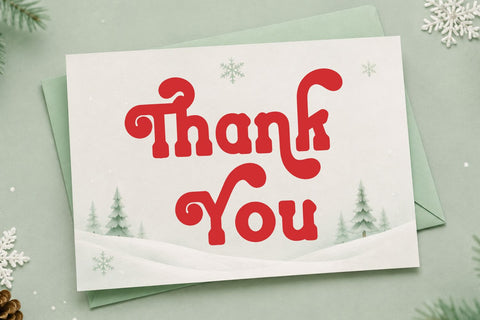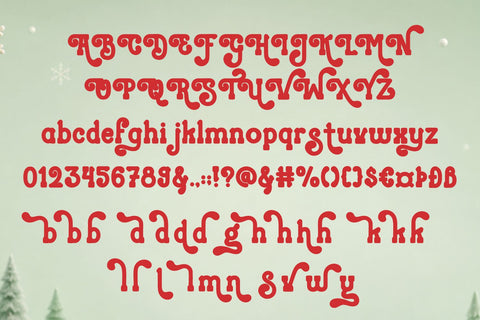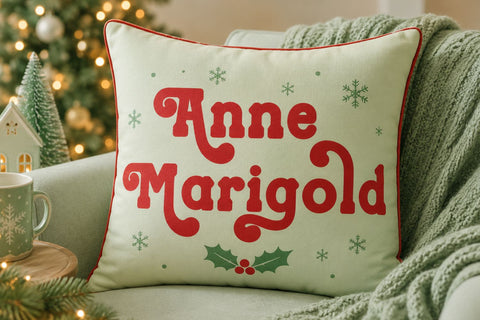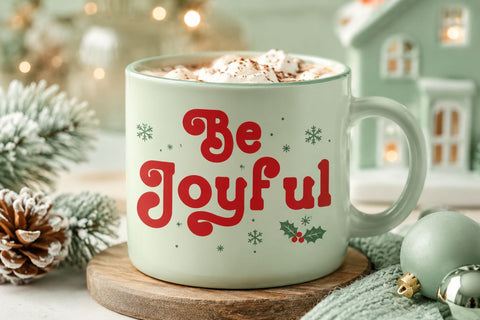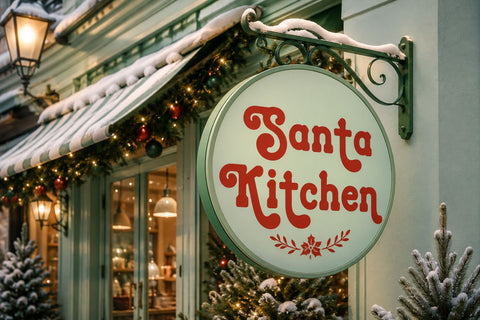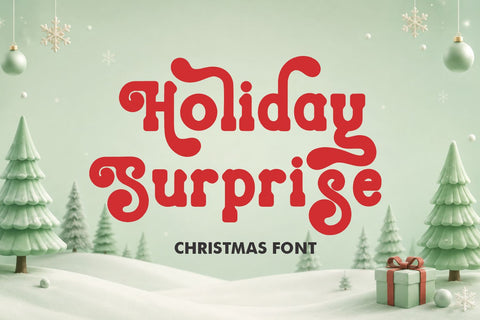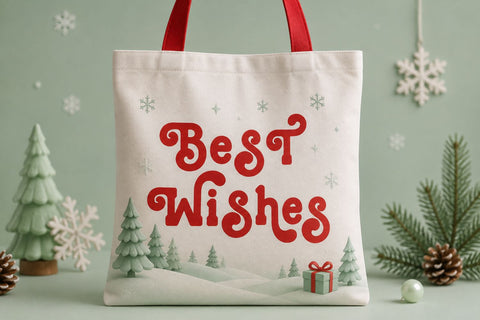
Holiday Surprise – Christmas Font
Holiday Surprise – Christmas Font | Festive Christmas Font
Holiday Surprise is a playful and charming Christmas font created to capture the warmth, excitement, and joyful spirit of the Christmas season. With cheerful decorative letterforms and a whimsical festive style, this Christmas Font brings instant holiday character to greeting cards, decorations, gifts, crafts, and seasonal designs.
Designed with a fun and friendly appearance, Holiday Surprise combines decorative details with clear, balanced letterforms. The result is a versatile font that works beautifully for both large Christmas headlines and smaller decorative elements.
Inspired by Christmas lights, snowy winter days, wrapped presents, Christmas trees, ornaments, holiday decorations, and cozy celebrations, Holiday Surprise adds a magical seasonal feeling to every project.
A Christmas Font for Holiday Designs
Holiday Surprise is made for a wide range of Christmas and holiday projects. Use it to create festive typography for:
From a simple holiday greeting to a complete Christmas collection, its playful personality helps create designs that feel cheerful, cozy, and festive.
Christmas Cricut Font for DIY Projects
Looking for a Christmas font for Cricut? Holiday Surprise is a great choice for cutting machines and handmade holiday projects. Its decorative style can be used for a variety of Christmas crafts, apparel, decorations, and personalized creations.
Create festive typography for vinyl cutting, printable artwork, sublimation, handmade crafts, and other seasonal projects.
Bring Christmas Cheer to Your Designs
Holiday Surprise is especially suitable for projects that need a fun, cheerful, and magical Christmas atmosphere. The decorative letterforms make it easy to create eye-catching seasonal headlines while keeping the overall design warm and approachable.
Features
• Standard Glyphs
• Multilingual Glyphs
• Stylistic Alternates
• PUA Encoded Characters
• Suitable for Cricut & Silhouette
• Great for Print & Digital Design
Create Something Merry
Whether you’re designing a Christmas card, festive invitation, gift tag, holiday decoration, Christmas craft, or seasonal product, Holiday Surprise brings a playful touch of Christmas magic to your typography.
Add warmth, joy, and festive charm to your next holiday project with Holiday Surprise – a cheerful Christmas font made for the most wonderful time of the year. 🎄✨❄️